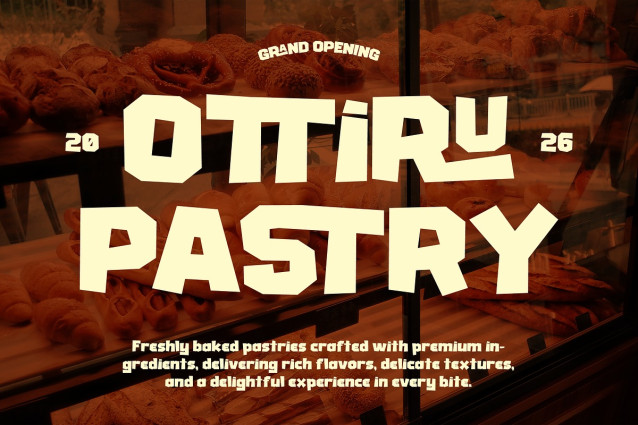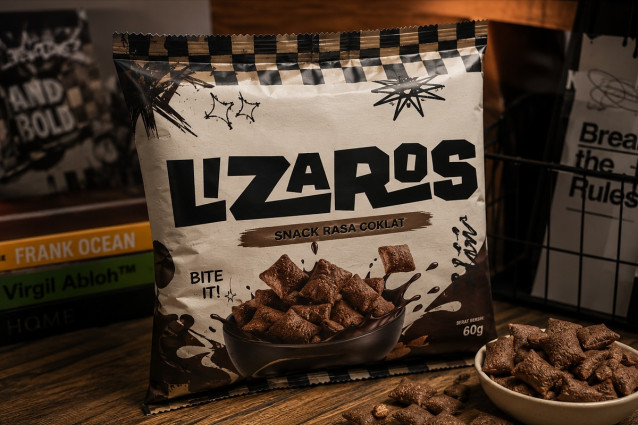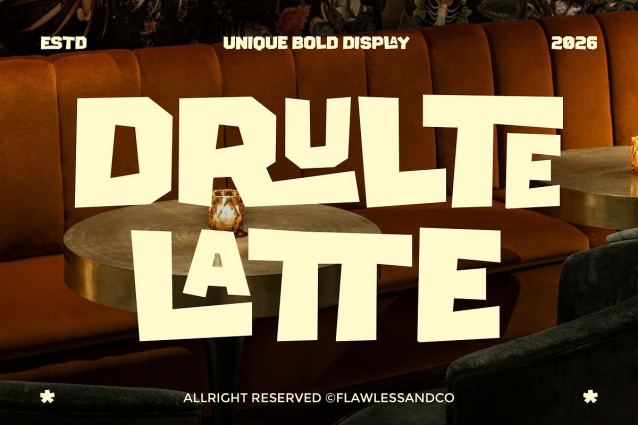
Drulte Latte Font
Drulte Latte Font is a bold and imaginative display font crafted to bring fun, confidence, and originality into every design. With its distinctive letterforms, playful curves, and strong visual presence, Drulte Latte creates an expressive typography style that instantly captures attention. Every character is designed with a unique personality, giving your projects a fresh and memorable appearance that stands out in both print and digital media.
Combining bold shapes with creative details, Drulte Latte is perfect for designers who want typography that feels energetic, modern, and full of character. Its unique design makes it highly effective for large headlines, logos, and branding applications where visibility and individuality are essential. Whether you’re creating product packaging, promotional graphics, or eye-catching social media content, Drulte Latte helps transform ordinary text into a powerful visual statement.